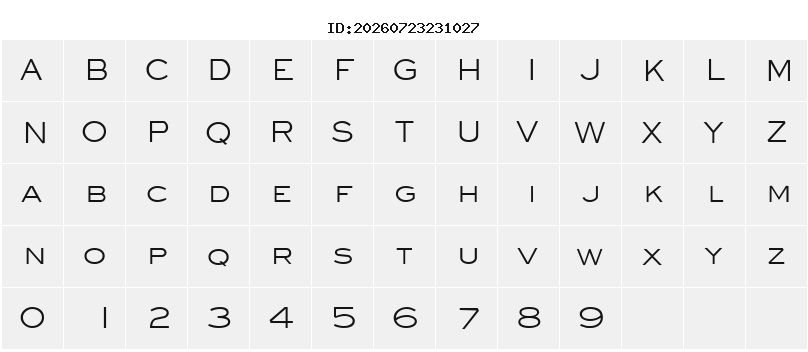
Eyechart Preview
About Eyechart.ttf
Eyechart.ttf is a modern, elegant sans-serif font designed for ultimate readability and visual harmony. Perfect for branding, headlines, web design, and print materials.